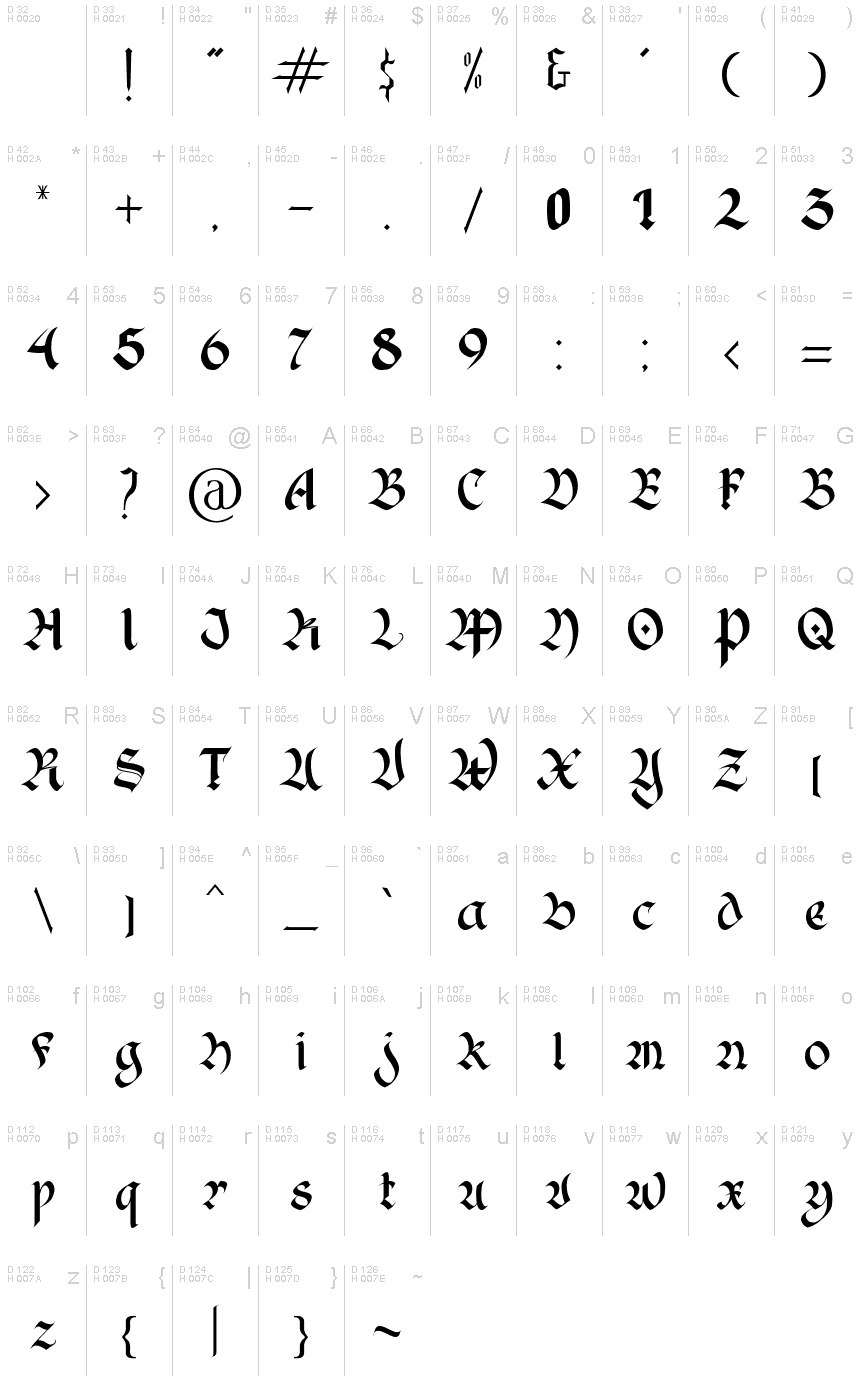
Black Rain
Black Rain is a Gothic font that embodies the essence of medieval times with its blackletter style. Designed by Kong Font, this font is perfect for projects that require a touch of old-world charm. The semi-bold font is ideal for headings, titles, and logos. Black Rain's bold strokes and intricate details make it suitable for use in various design projects such as book covers, posters, and album art. Whether you're creating a fantasy-themed website or designing a poster for a metal concert, Black Rain's Gothic style is sure to add depth and character to your project.